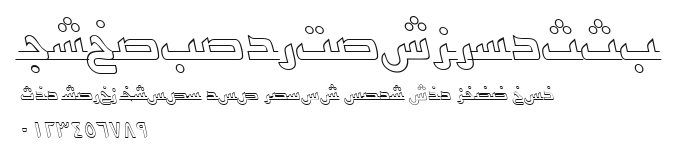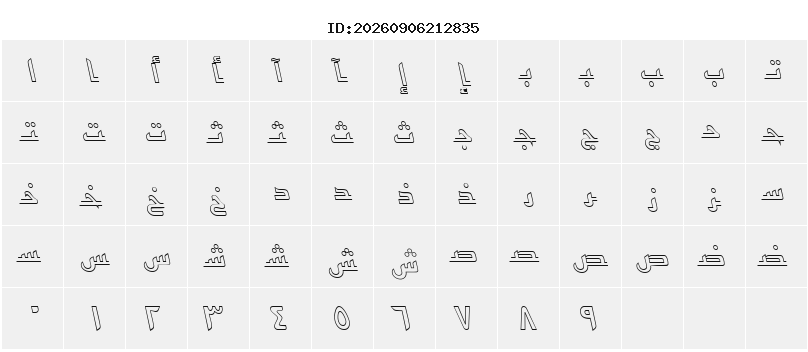
UrduKufiOutlineSSK Preview
• Font Name: UrduKufiOutlineSSK
• Font ID: Macromedia Fontographer 4.1 UrduKufiOutlineSSK Italic
• Full Font Name: UrduKufiOutlineSSK Italic
• Version: Macromedia Fontographer 4.1 8/16/95
• PostScript Name: UrduKufiOutlineSSKItalic
• Character Count: 238
About UrduKufiOutlineSSK.ttf
UrduKufiOutlineSSK.ttf is a modern, elegant sans-serif font designed for ultimate readability and visual harmony. Perfect for branding, headlines, web design, and print materials.